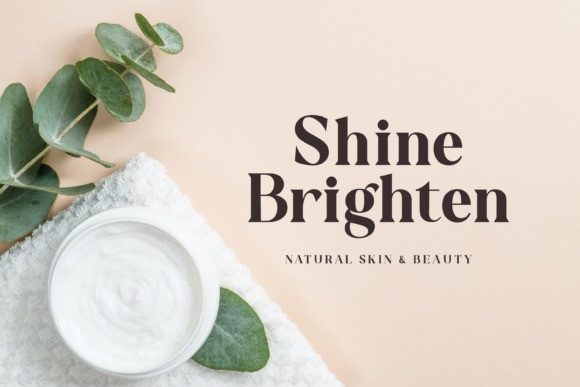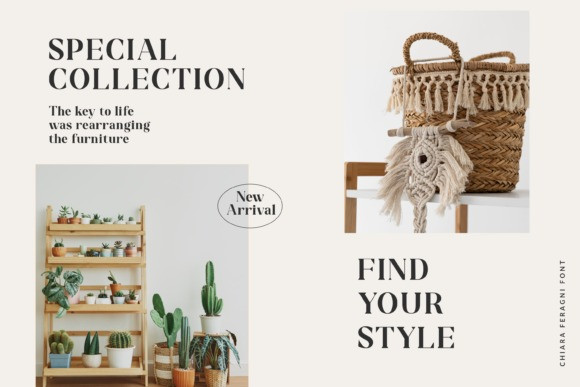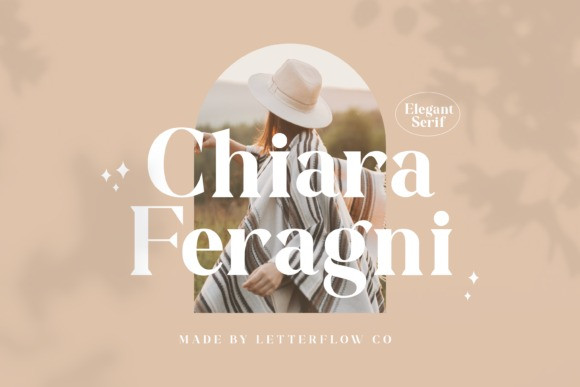
Chiara Feragni Font
Chiara Feragni Font is an authentic and beautiful serif font. Not too thin and not too thick, balanced and varied, this font was designed to enhance the beauty of your projects.